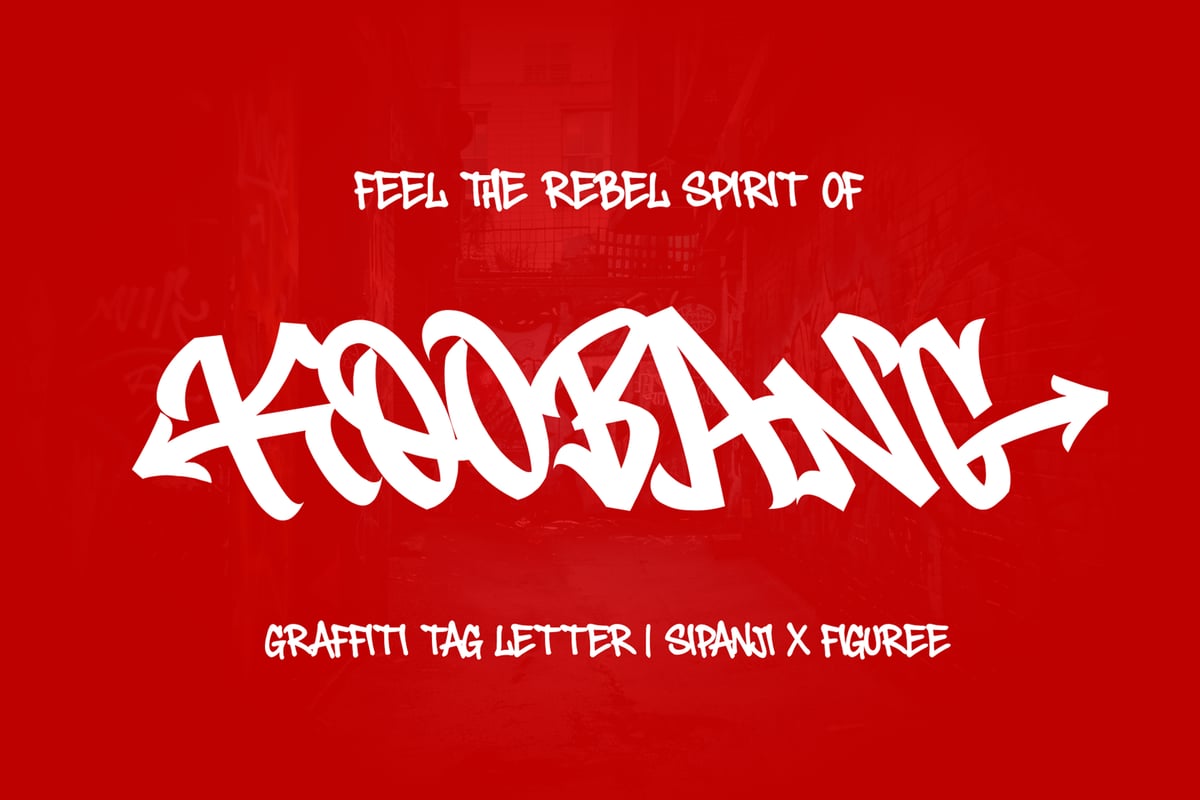
Koobang
Koobang is a monoline graffiti tag font that captures the true rhythm of urban street art — bold, confident, and full of motion. Designed for artists, designers, and brands that love authentic graffiti energy, Koobang represents freedom of expression through clean marker strokes and natural handstyle flow. Every letter looks as if it was drawn with a quick, precise graffiti pen — smooth, spontaneous, and alive. This font combines street authenticity with modern digital craftsmanship. Each chara